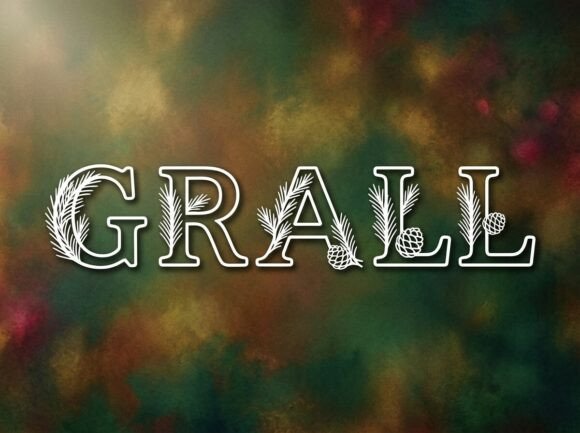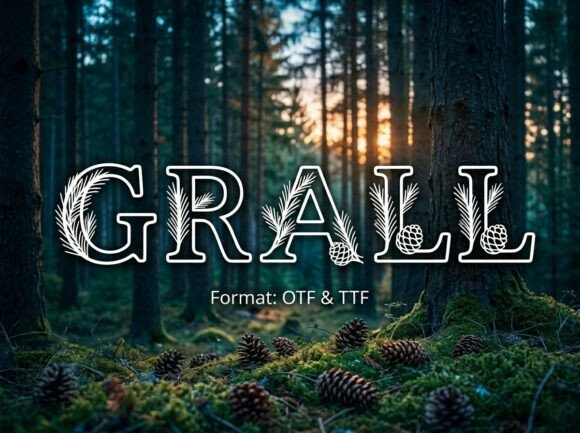
Introduction to Grall Font
Have you ever been stuck in a design rut, searching for that perfect font to elevate your creative project? You know, that moment when you’re brainstorming ideas and suddenly, a bold, eye-catching font pops into your mind, setting your imagination ablaze? That’s exactly what the Grall Font is designed to do – ignite your creativity and make a statement.
As a designer, you’re always on the lookout for high-quality design resources that can help you stand out from the crowd. The Grall Font is a stunning decorative display font that’s sure to grab attention, whether you’re working on a logo, packaging design, or even a free download template. With its unique artistic elements and strong visual personality, this font is perfect for designers who want to break away from the ordinary and add a touch of sophistication to their projects.
What sets the Grall Font apart is its versatility – it’s suitable for a wide range of creative applications, from bold headlines to artistic logos, while maintaining a professional and polished finish. And with both OTF and TTF file formats available, you can use it across all devices with ease.
Key Features of Grall Font
- High-quality design resource ideal for creative projects, offering a unique and modern aesthetic.
- Transparent background allows for seamless integration into any design, giving users maximum flexibility.
- Available in multiple sizes, including small caps, to cater to different design requirements.
- High-resolution design, suitable for use in print and digital applications, including posters, flyers, and websites.
- Designed to be easily scalable, ensuring that the font remains crisp and clear even at large sizes.
Honest Review: Grall Font
As a designer, I’m always on the lookout for high-quality fonts to elevate my creative projects. I recently had the chance to work with the Grall Font, and I’m excited to share my honest review.
- ✨ Unique design: The Grall Font has a distinctive look that sets it apart from more common fonts.
- ✨ High-quality glyphs: The font includes a wide range of characters, including accents and punctuation marks.
- ✨ Easy to read: The Grall Font is highly legible, making it perfect for body text and headings.
- ⚠️ Limited font sizes: The Grall Font may not be suitable for very large or very small font sizes.
- ⚠️ Not ideal for transparent backgrounds: The font may not display well on transparent backgrounds due to its thick strokes.
Overall, I’m impressed with the Grall Font’s unique design and high-quality glyphs. While it may have some limitations, I think it’s a great addition to any designer’s toolkit. Whether you’re working on a creative project or just looking for a new font to experiment with, the Grall Font is definitely worth checking out.
Common Use Cases for Grall Font
The Grall Font is commonly used in graphic design, digital art, and web design projects. It’s a great choice for creating eye-catching headlines, titles, or captions.